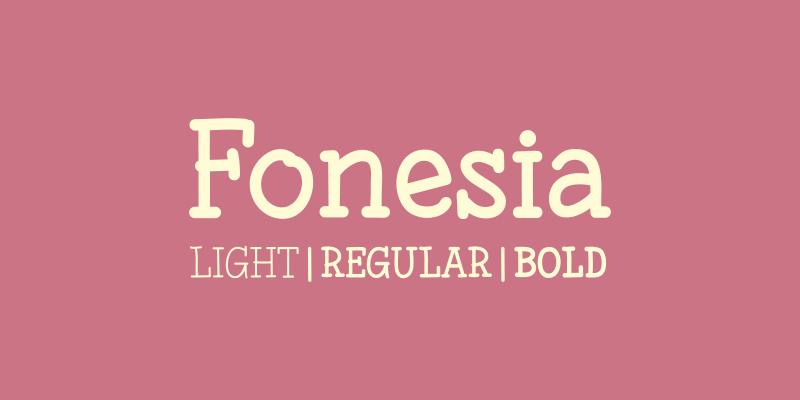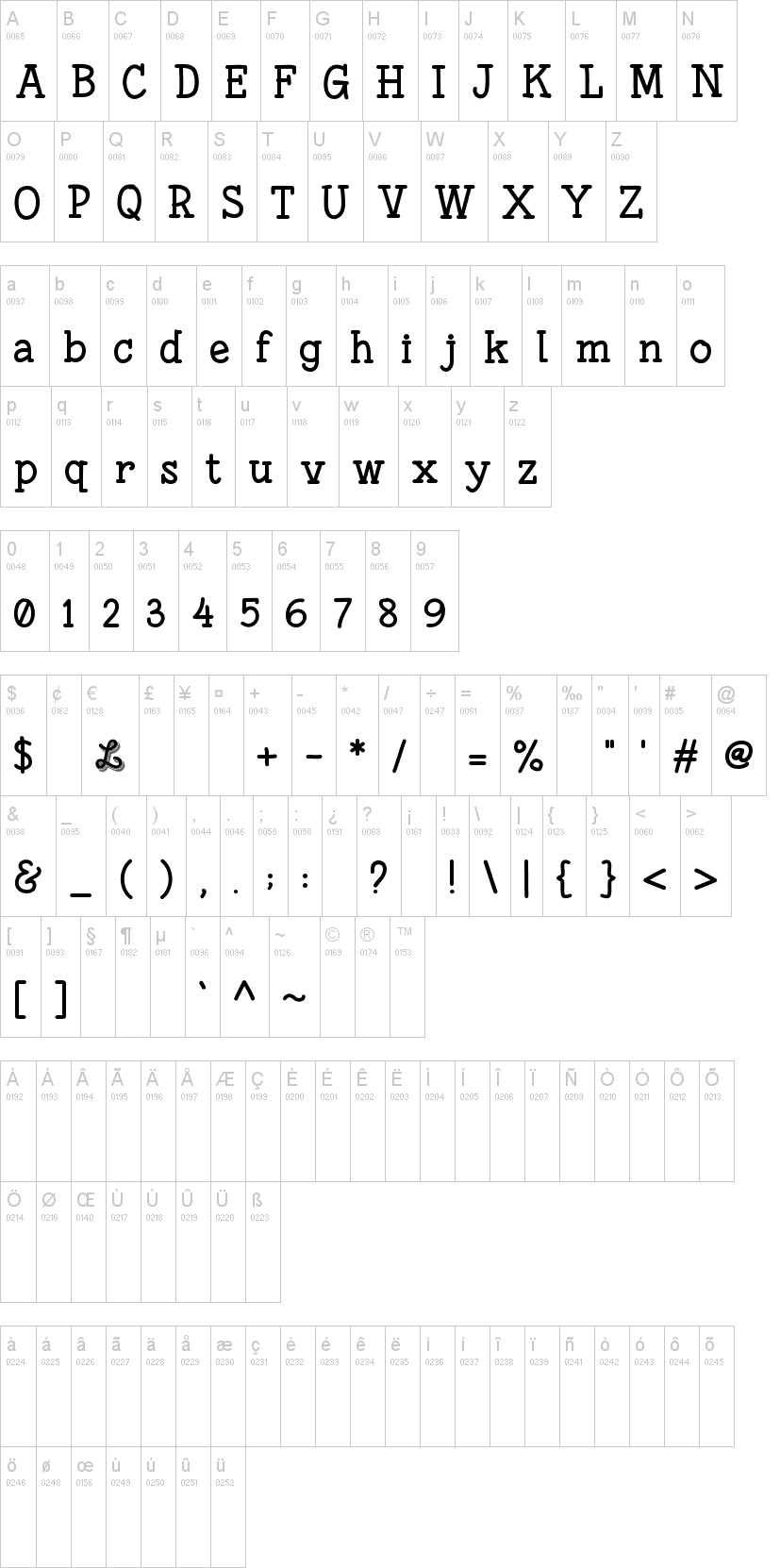
Fonesia-Regular.ttfFonesia-Bold.ttfNote of the authorFonesia was inspired by stroke of handwritten style. Available in three styles; light, regular and bold.